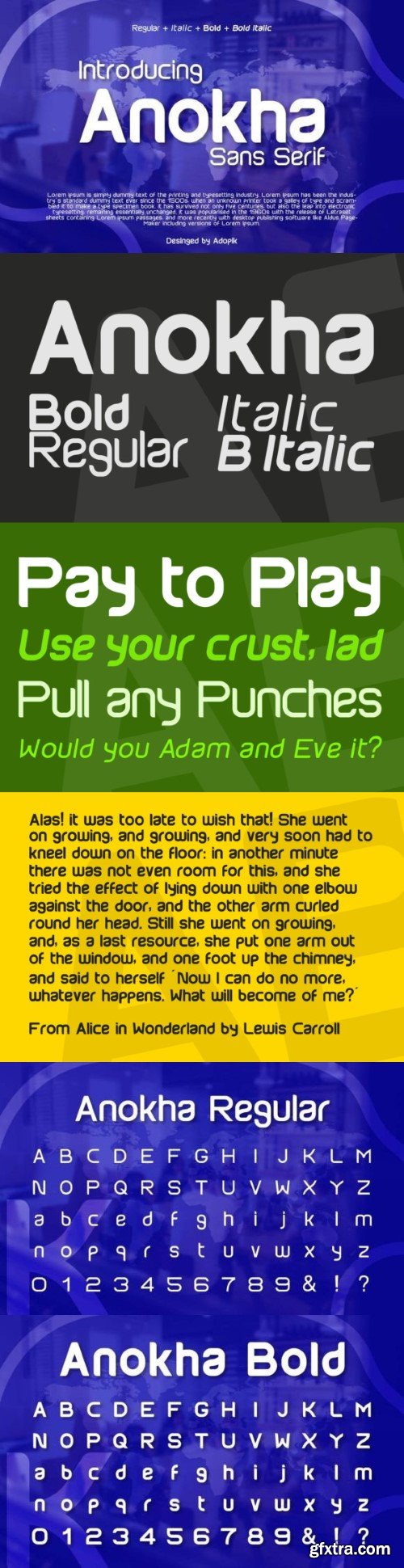
昂卡亚字体
Introducing Anokha Logotype Sans Serif font.
Anokha is a Futuristic and Clean font, best used as a display for headings, logos, branding, magazines, product packaging with clean lines and smooth curves giving any project an extra touch of class.